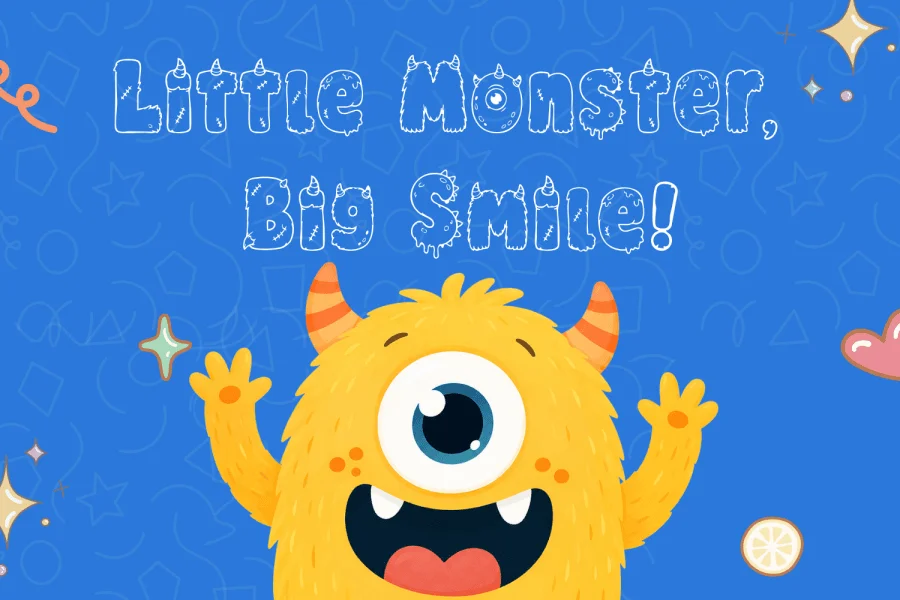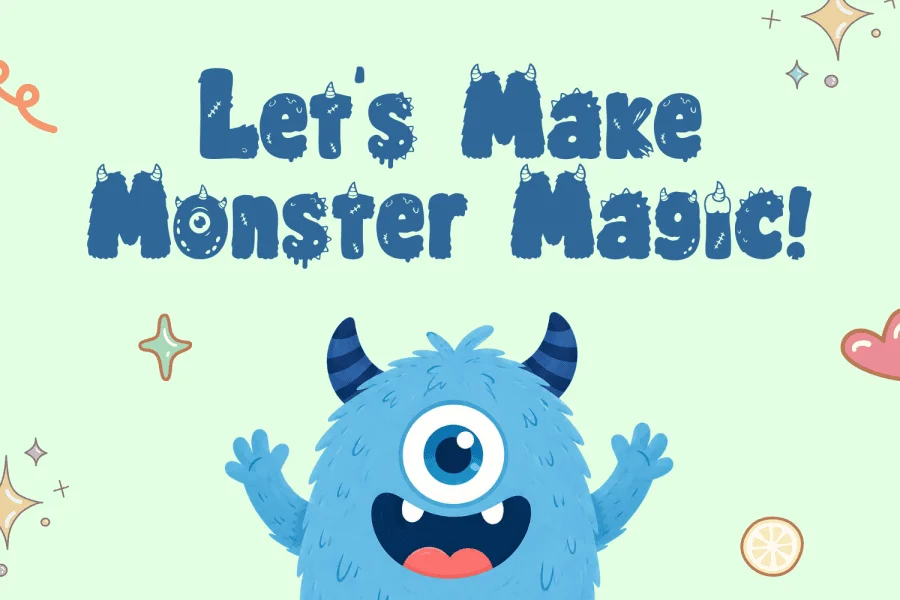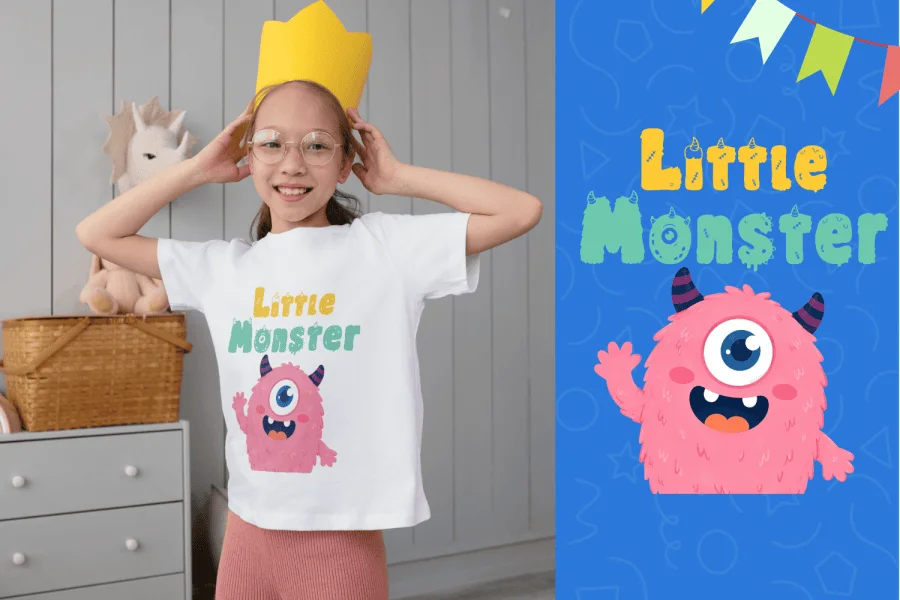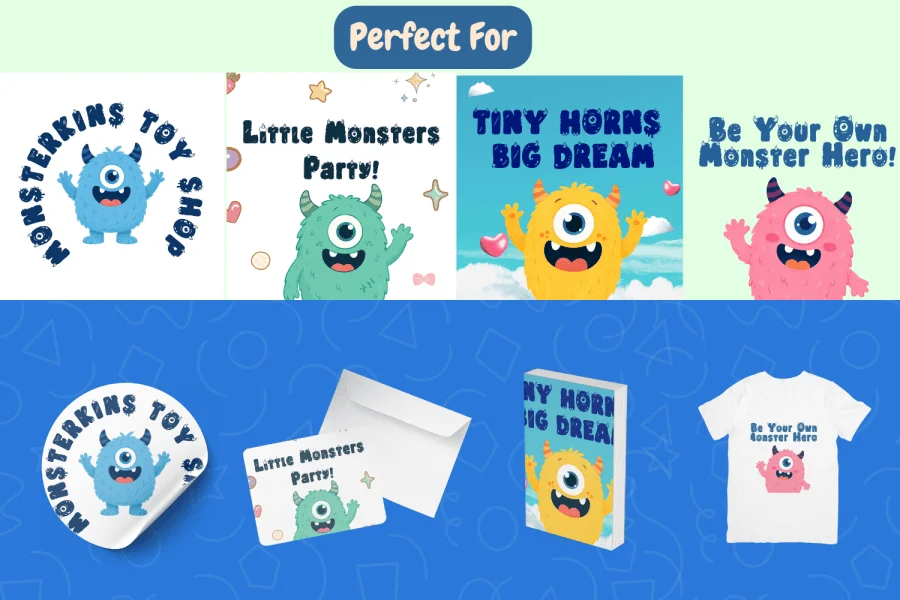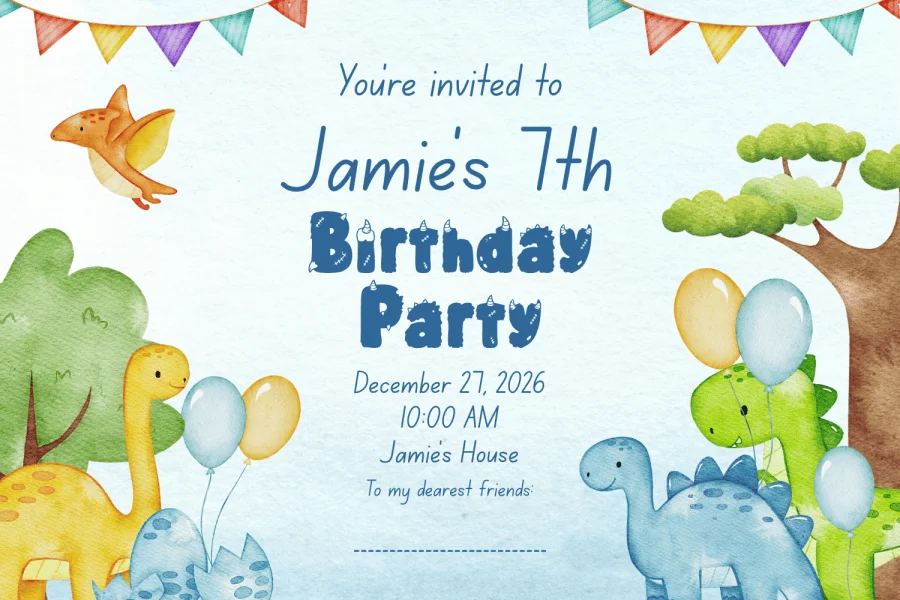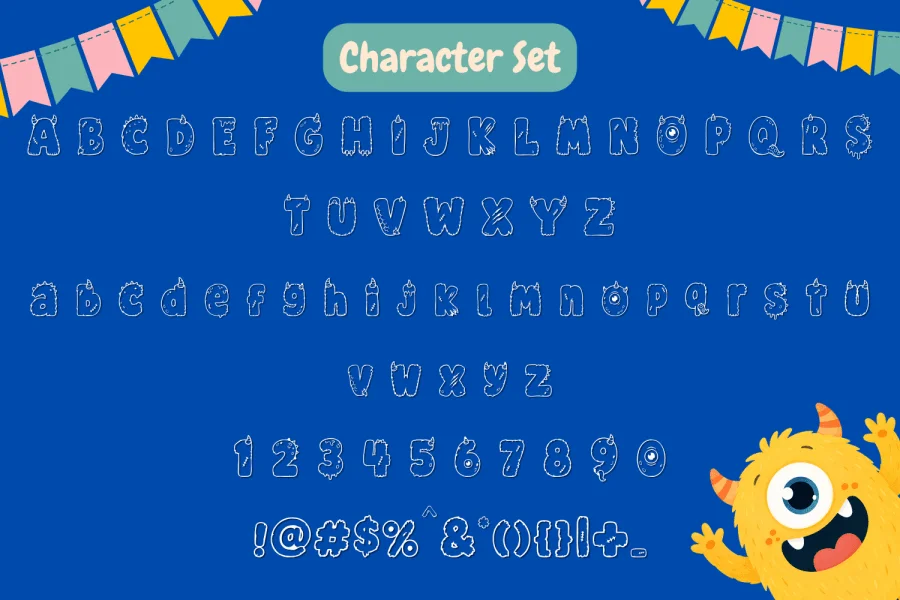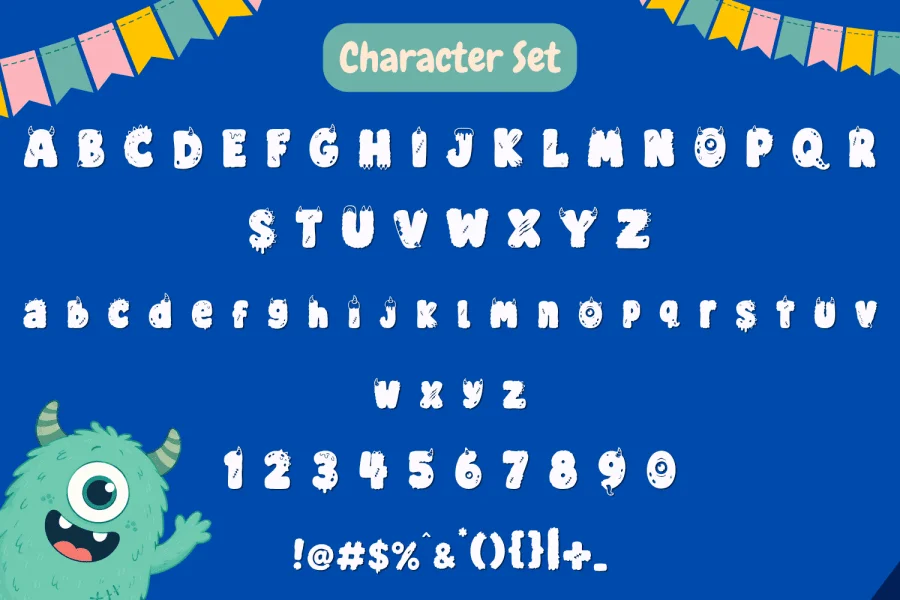
Monsterkins is a playful, hand-drawn display typeface that leans into a whimsical, animated aesthetic. Characterized by its ultra-bold, chunky letterforms, the typeface features irregular, textured outlines that mimic the furry, organic shapes of cartoon creatures. Small, distinctive details like tiny horns, spikes, and dripping elements are integrated directly into the anatomy of the letters, giving each character a unique, illustrative personality. The font is available in both a solid, heavy-weight regular style and a clean, open outline style, allowing for versatile layering and contrast.
Monsterkins is perfectly suited for children's branding, toy packaging, and themed event materials. Its friendly, energetic appearance makes it an excellent choice for t-shirt designs, book covers, birthday party invitations, and stickers. The expressive, hand-crafted quality of the letterforms ensures that any headline or title stands out with a cheerful, lighthearted tone.